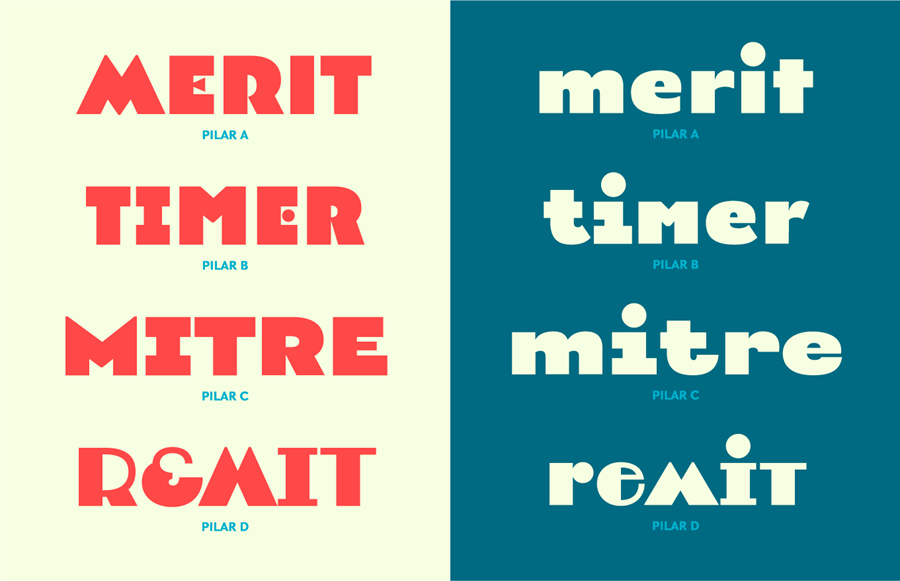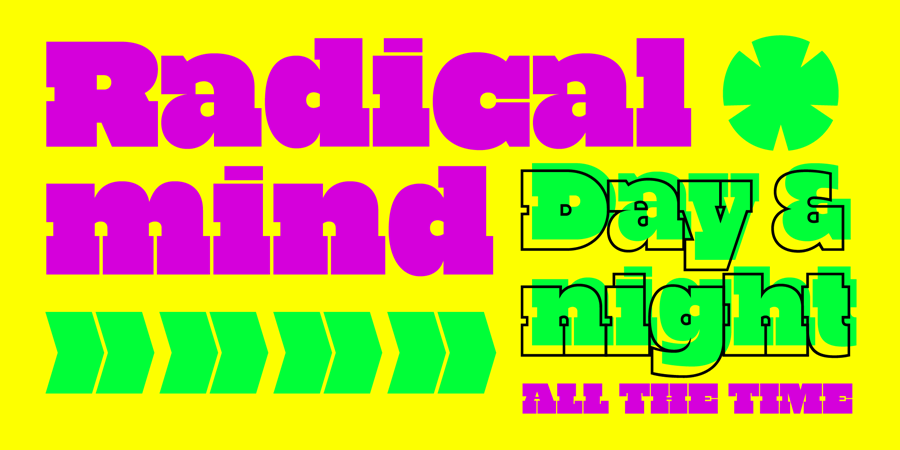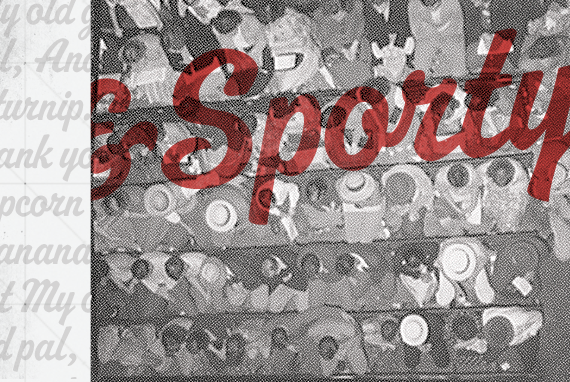
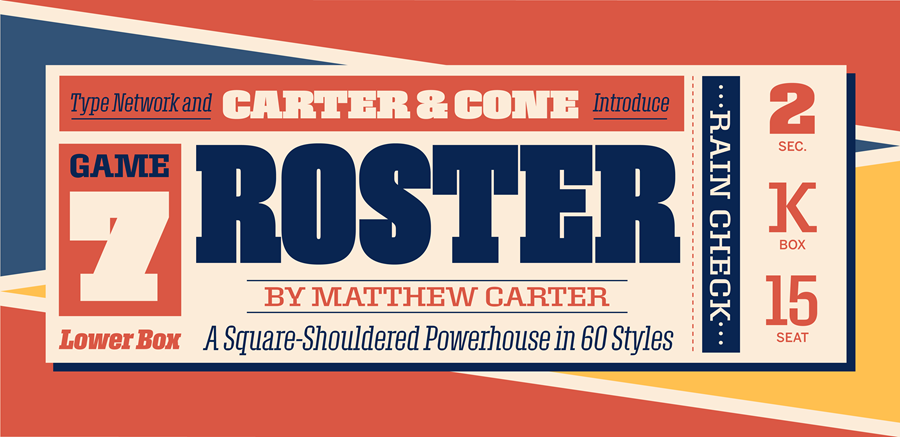
Designed by Matthew Carter and assisted by Jesse Ragan (of XYZ Type)
Known for his workhorses, Matthew Carter’s Roster shows his more experimental side. Roster takes the visual tension of square corners within rounded shapes—sometimes seen in subtler forms in text faces—and makes it the underlying structure of a dramatic slab-serif display family.
Roster’s outer shapes are large, curved rectangles, while its inner shapes have the chisel-cut clarity of carved counters. The effect is both eye-catching and solid. It’s available in 60 styles spanning six weights and five widths, making the perfect starting-point for a capable brand system.
Designed by Yury Ostromentsky and Ilya Ruderman
Made especially for large display purposes, Pilar is a contemporary reworking of European art deco type. The first version of this typeface was drawn by Yury Ostromentsky for the headlines of Bol’shoy Gorod (Big City) Magazine in 2012.
The typeface now has four stylistic sets—Regular Open, Wide Closed, Narrow, and Wild—with four sets of alphanumeric glyphs: one default and three alternates. Every letter comes in four different designs. With this flexibility, a single word or phrase can be given completely different tones while staying within one voice.
Designed by Sibylle Hagmann
The Utile series consists of two optical sizes: One for setting text type and one intended for display. The characteristics of the two optical sizes differ in significantly, with Utile Display featuring heavier contrast, closer spacing, re-proportioned letters, slightly extended ascenders and descenders, and close to non-existent ink traps.
Utile’s incised stem modulation—uniquely asymmetrical in its application—balances between swelled strokes and the absence of such. Utile Display comes in 14 styles across seven weights and two widths, incorporating enough flexibility for branding, editorial, and advertising on print and screen.
Designed by Petr van Blokland
A fun departure from Petr van Blokland’s typical stylings, PowerLift is a chunky, single-weight display slab that comes in two versions: Tight and Tight Outline. PowerLift embraces and rethinks the challenge of combining heavy letterforms with blocky serifs.
In some places, apertures close and the forms fold into themselves, creating surprising new counters where traditionally one would expect openings. The styles fit together seamlessly, but each can also be used as a standalone typeface. Used as a pair, the PowerLift fonts feel like 80s Night at the roller rink—in a good way.
Designed by Mark van Bronkhorst
Even if sports aren’t your thing, you might find a nostalgic appeal to script varsity lettering from years past. Naive and uneven, yet jaunty and legible, such casual scripts—with their requisite underline swooshes—are standard equipment for baseball teams and ice cream parlors.
To bring this aesthetic to the digital arena, Mark van Bronkhorst began with a vintage iron-on alphabet, redesigned the crammed, overlapping letters to behave as a script typeface, and expanded the character set to support all Latin-based languages. Despite its professional skill set, MVB Mascot retains the unvarnished spirit of its inspiration through three styles, each rougher than the last.